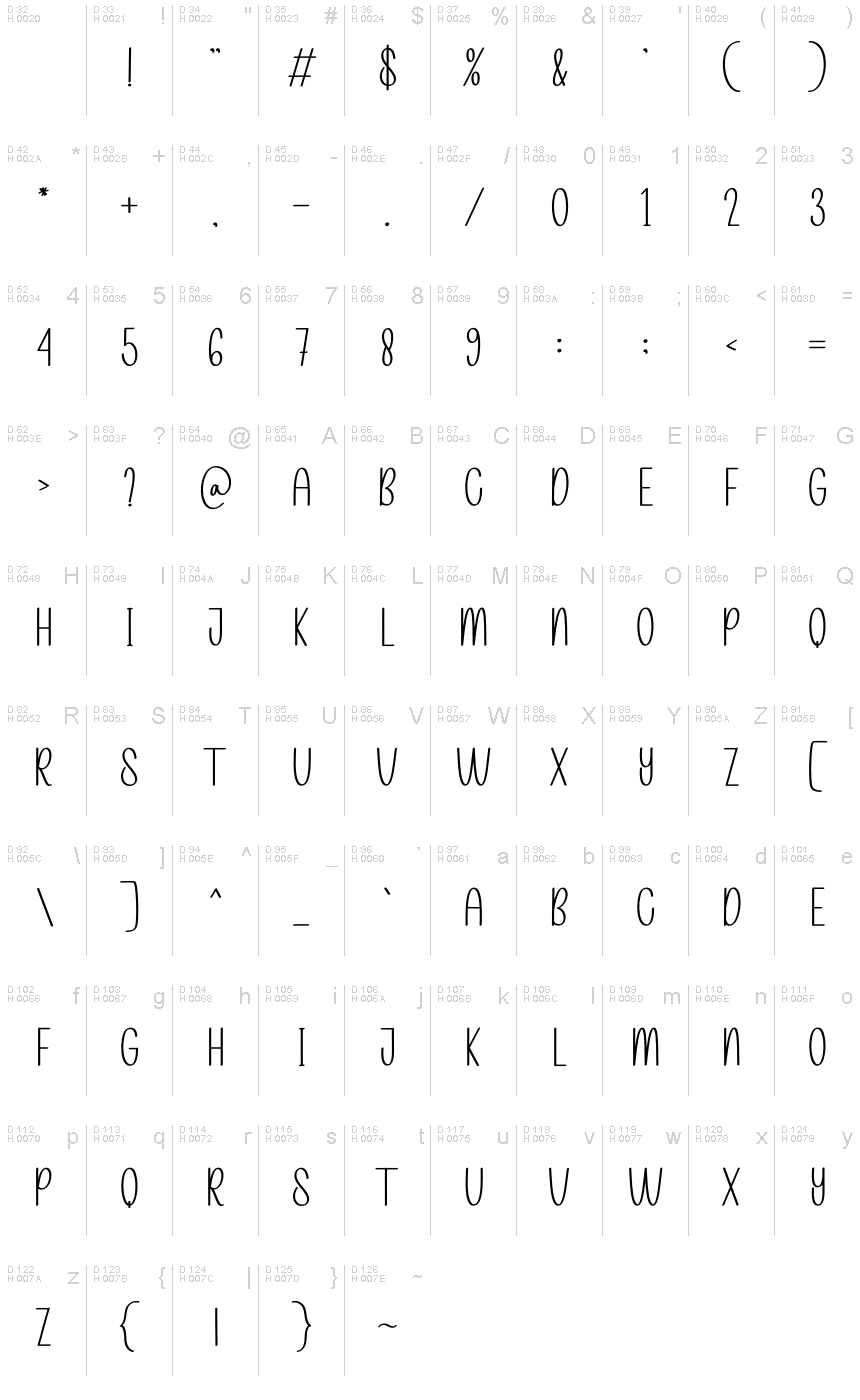
Designer Valentine
Designer Valentine is a captivating handwritten font that exudes a blend of elegance and whimsy. Its light, condensed strokes create a sense of effortless sophistication, making it an ideal choice for a wide range of design applications. From wedding invitations to greeting cards, this font's charming and personalized aesthetic adds a touch of artistry to any project. Its versatility also lends itself well to packaging design, branding, and even editorial layouts, where its distinctive character can elevate the visual impact.
The font's delicate, yet striking appearance is a testament to the skill of its designer, Andi Moz, who has masterfully captured the essence of handwritten calligraphy. Designer Valentine's unique charm and adaptability make it a valuable asset for designers seeking to infuse their work with a touch of refined, personal expression.